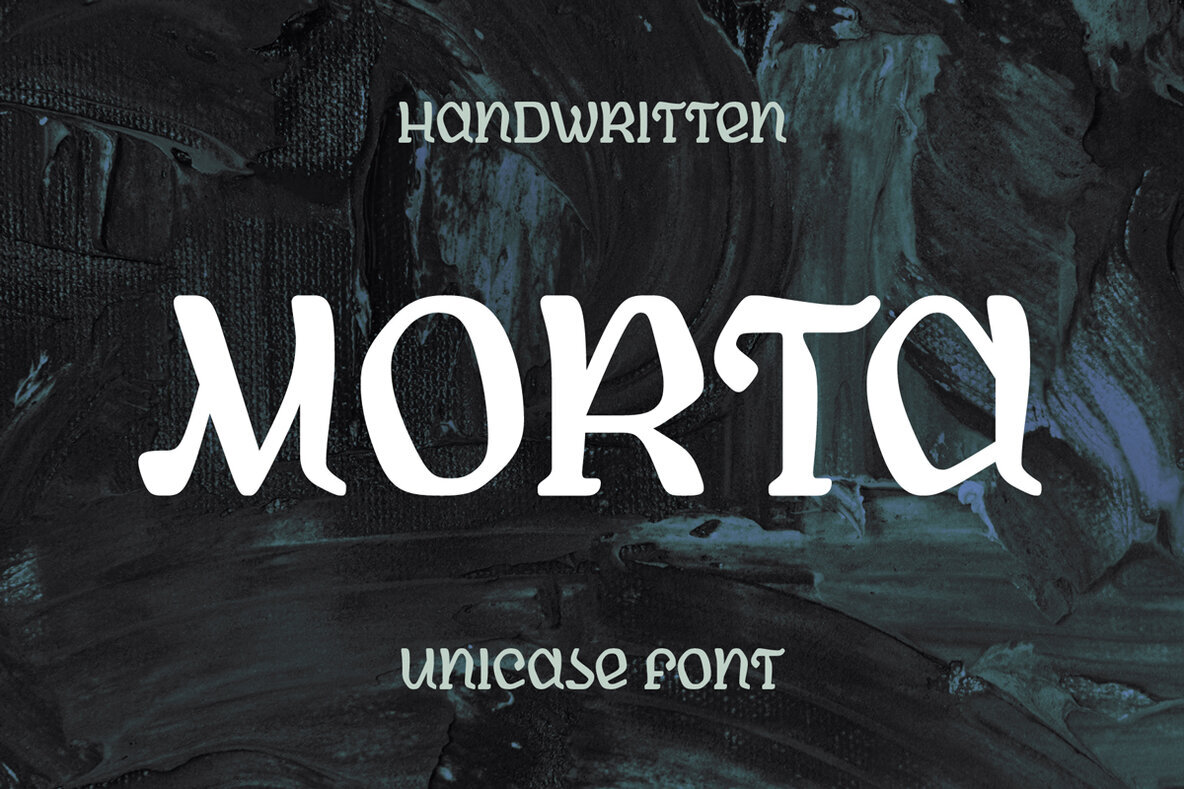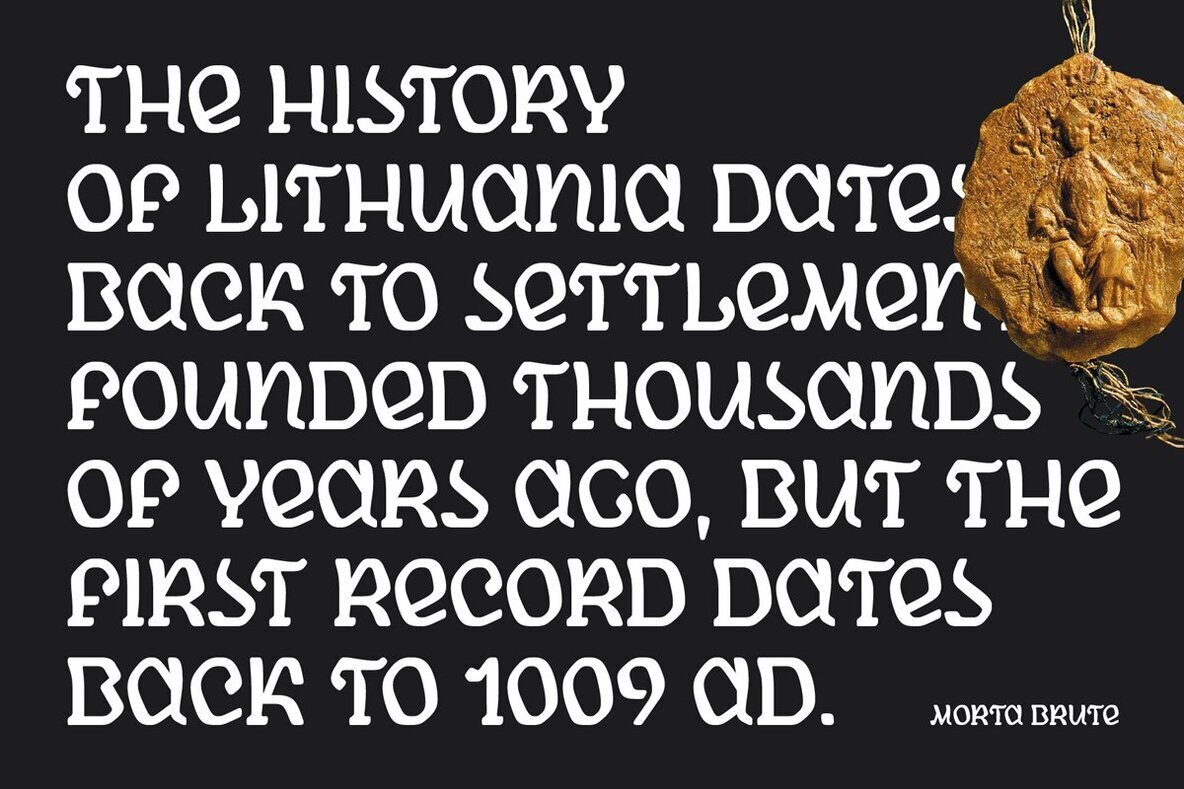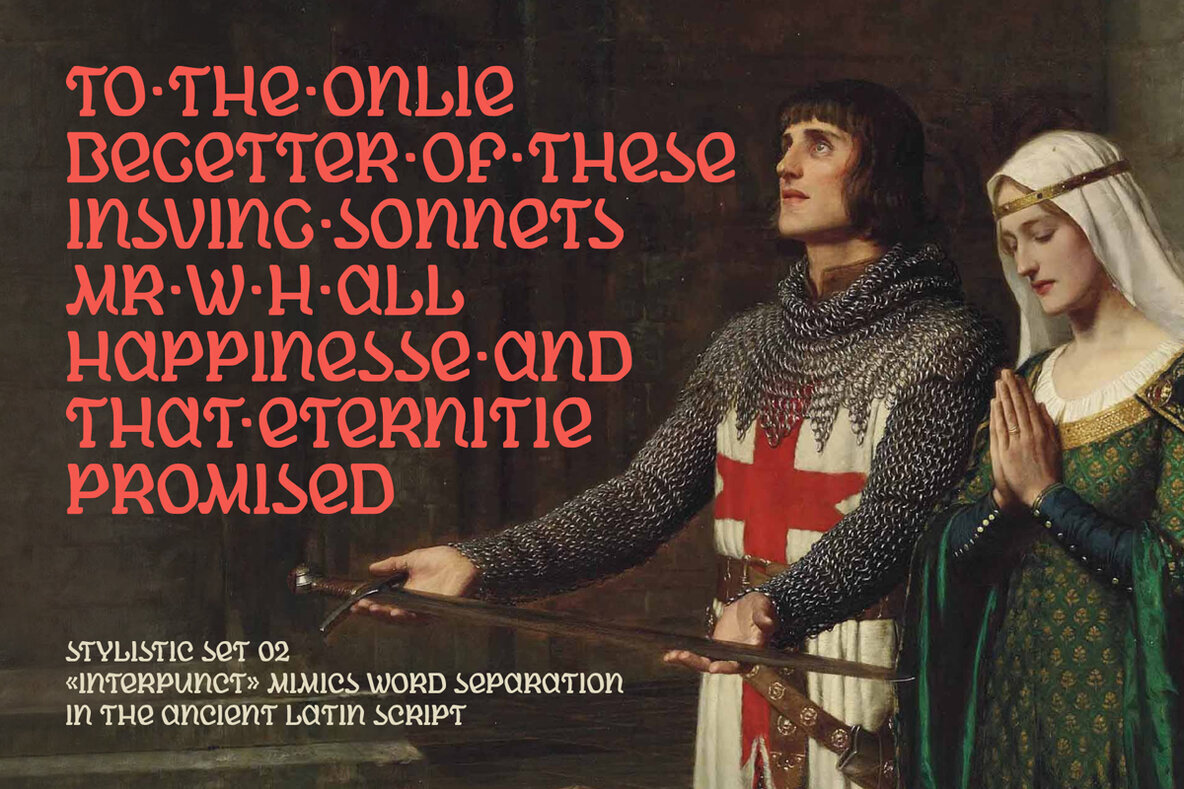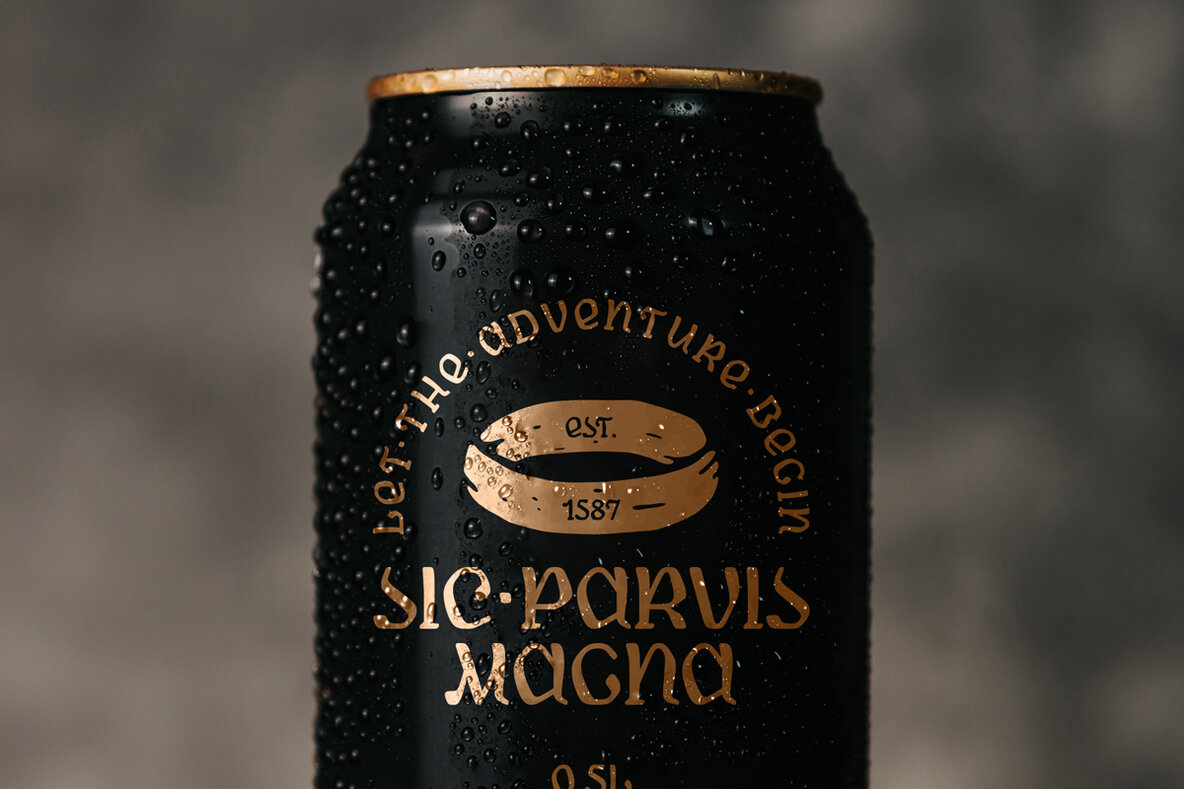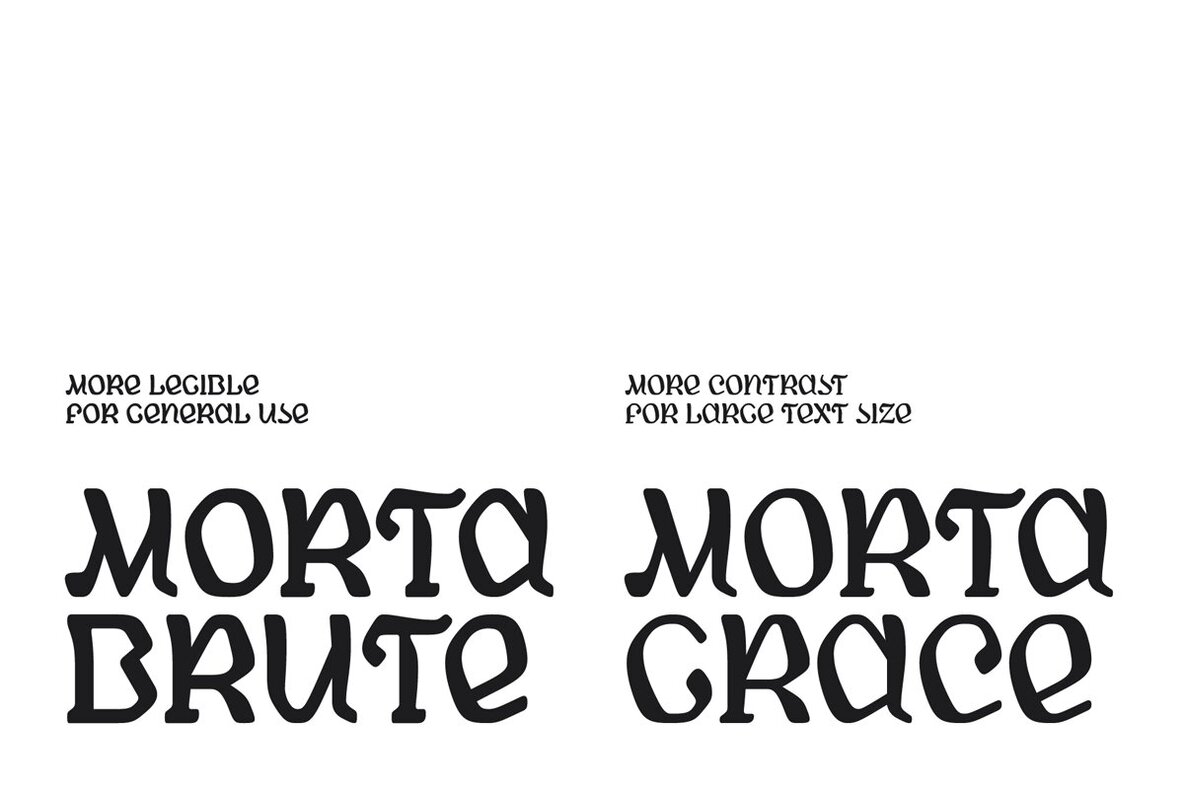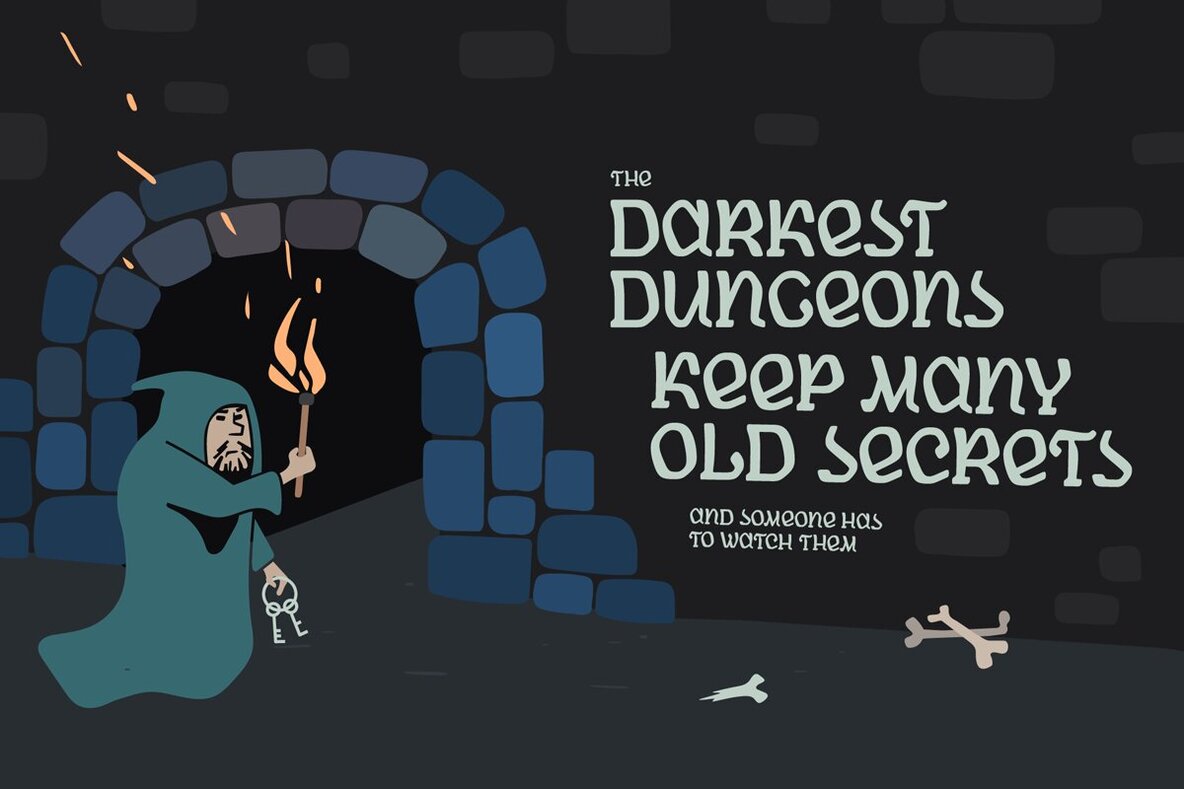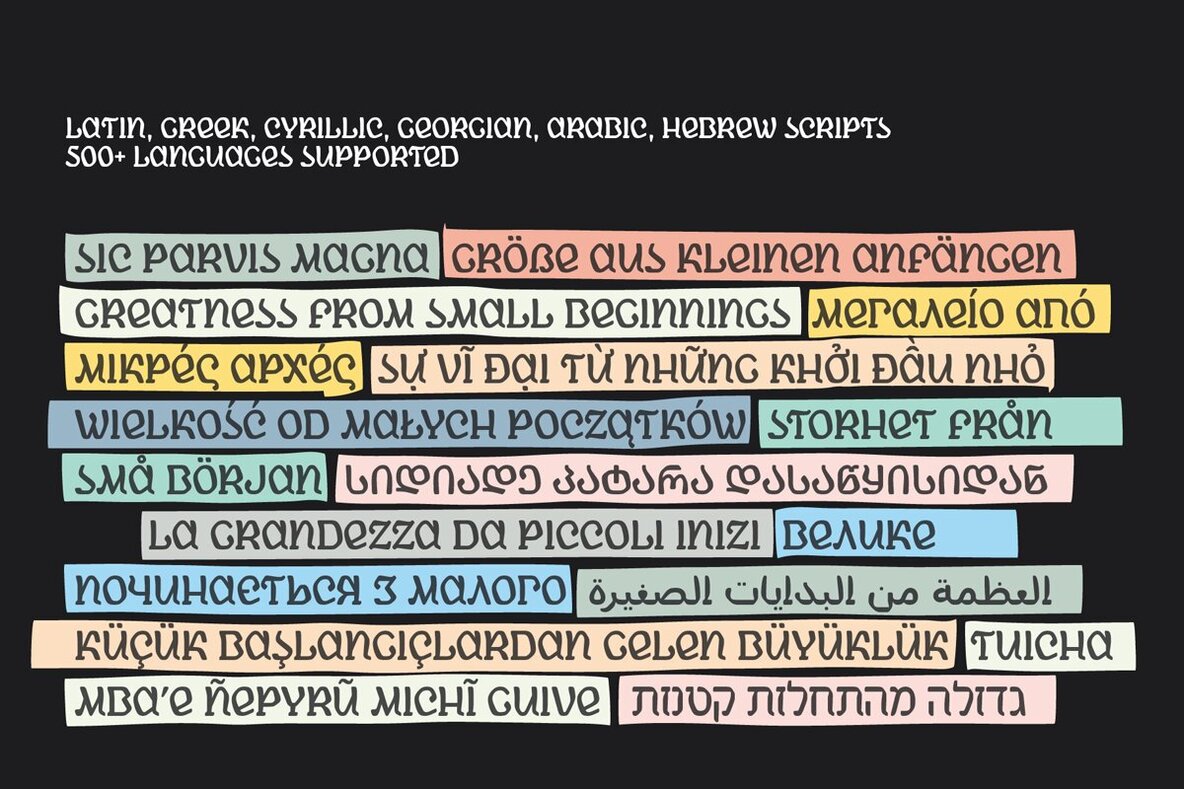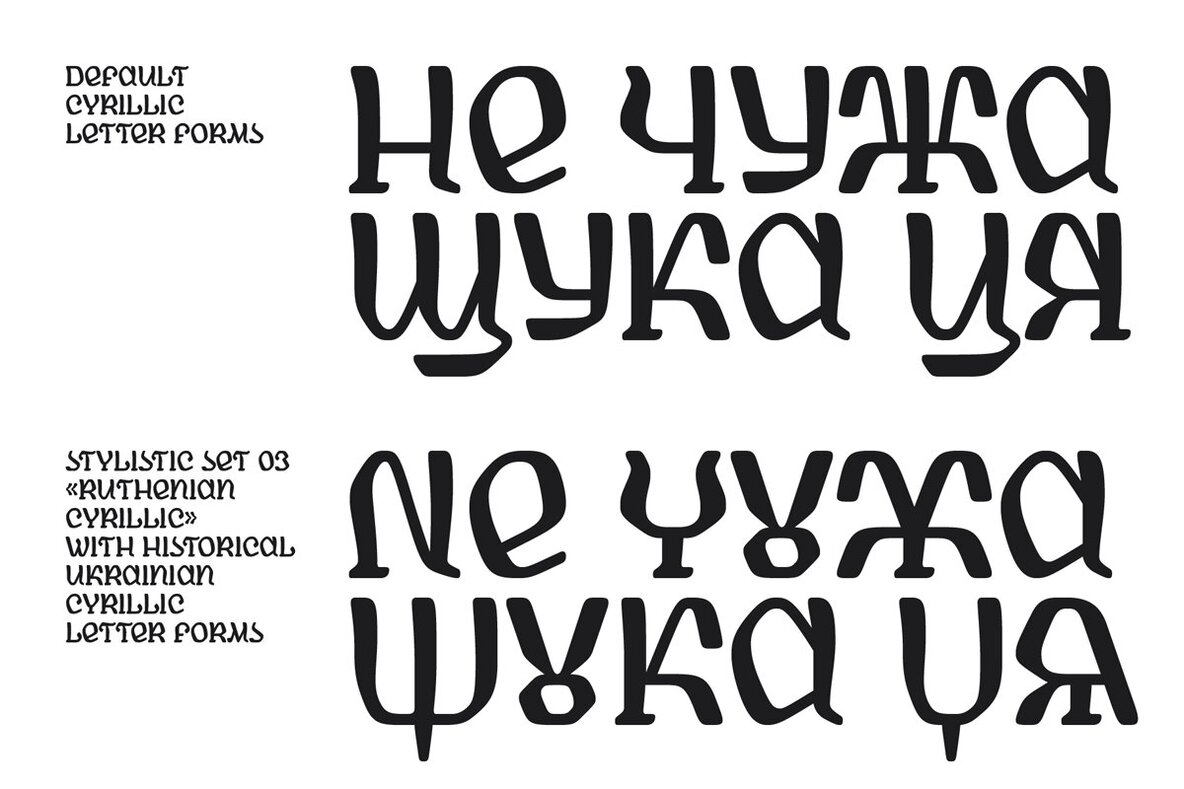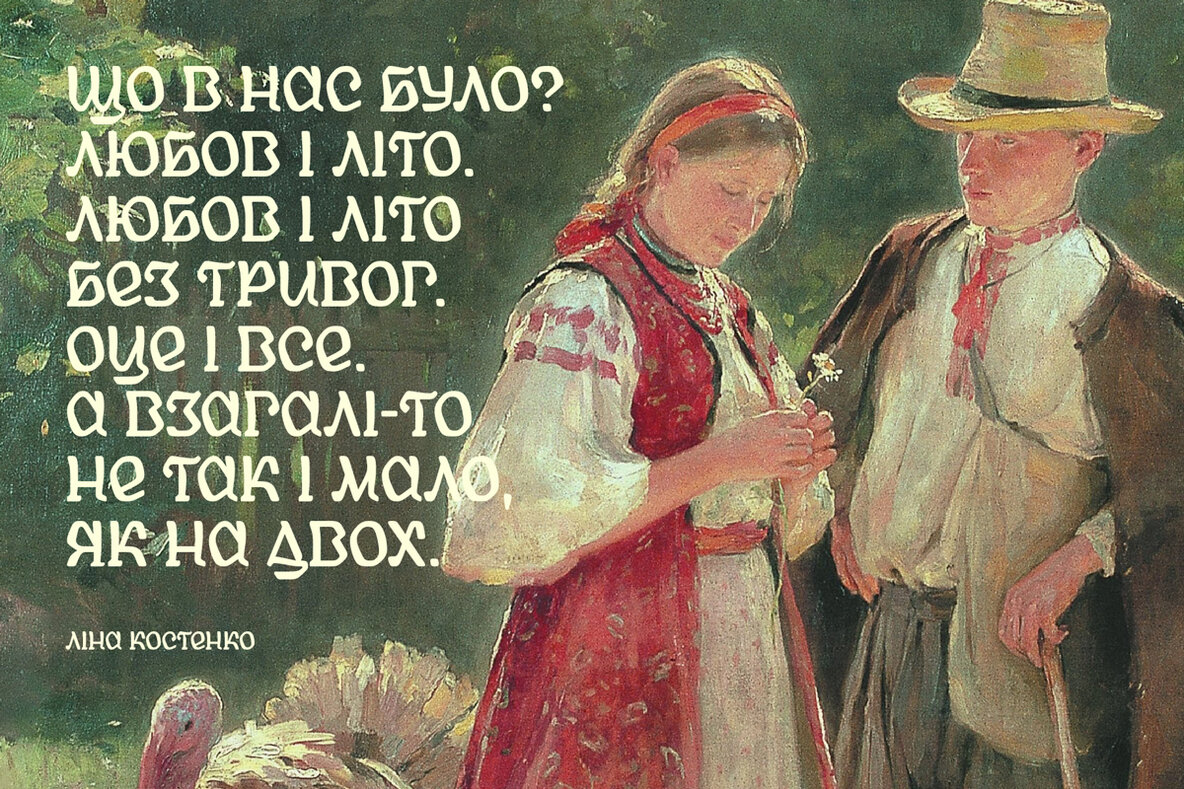
Morta Font
Morta Brute
Morta Grace
Dive into the world of Morta, where ancient craftsmanship meets modern design. This handwritten unicase typeface, with its subtle calligraphic undertones, is available in two styles: the versatile 'Brute' for everyday use and the striking 'Grace' for larger text sizes. Morta captures the essence of centuries-old carved stones, with its chiseled edges and polished corners, offering a distinct typographic experience. Designed to mirror the slant of Italic writing in an unconventional way, Morta challenges traditional perspectives. The font's unique irregular shapes, formed with minimal straight lines and softened corners, evoke the timeless beauty of stones shaped by nature. The Unicase typographic style further enhances its historical appeal, reminiscent of ancient Latin inscriptions. With features like the 'Interpunct' stylistic set, which uses a middle dot instead of spaces, Morta stands out as a font that marries historical intrigue with contemporary flair.Morta Typeface: A Handwritten Unicase Adventure